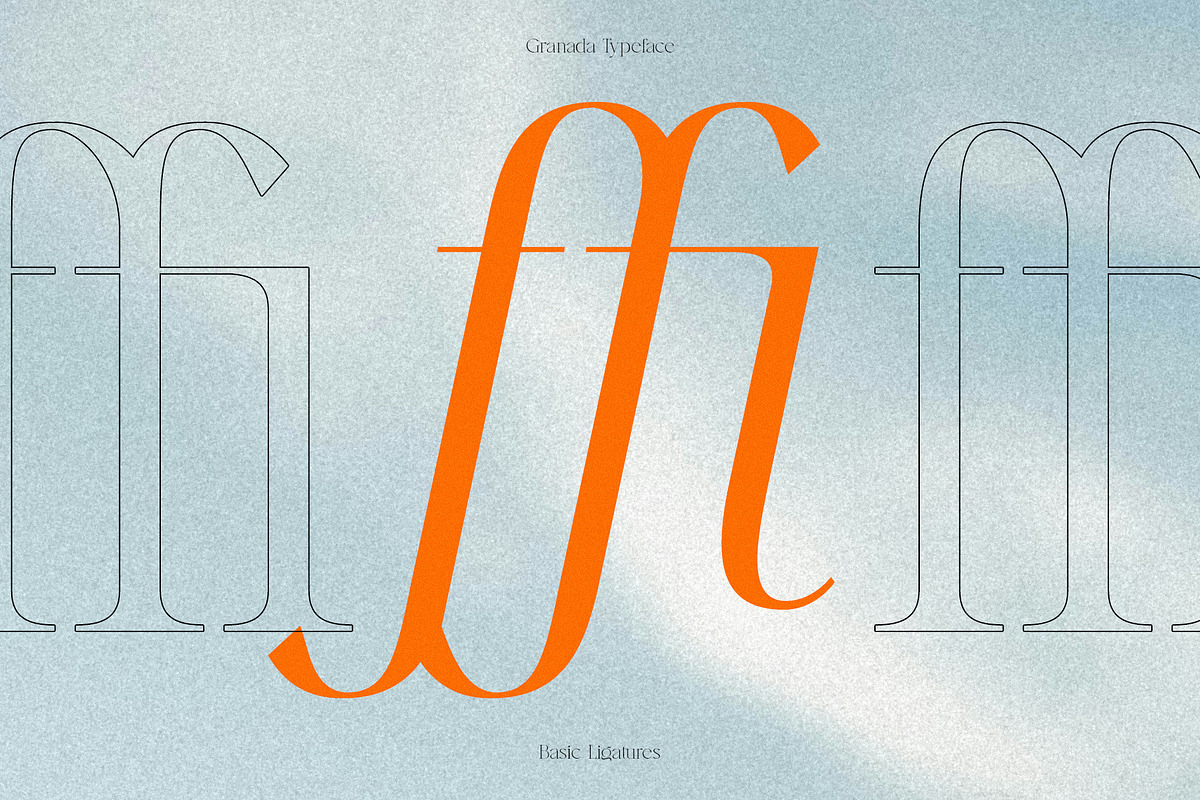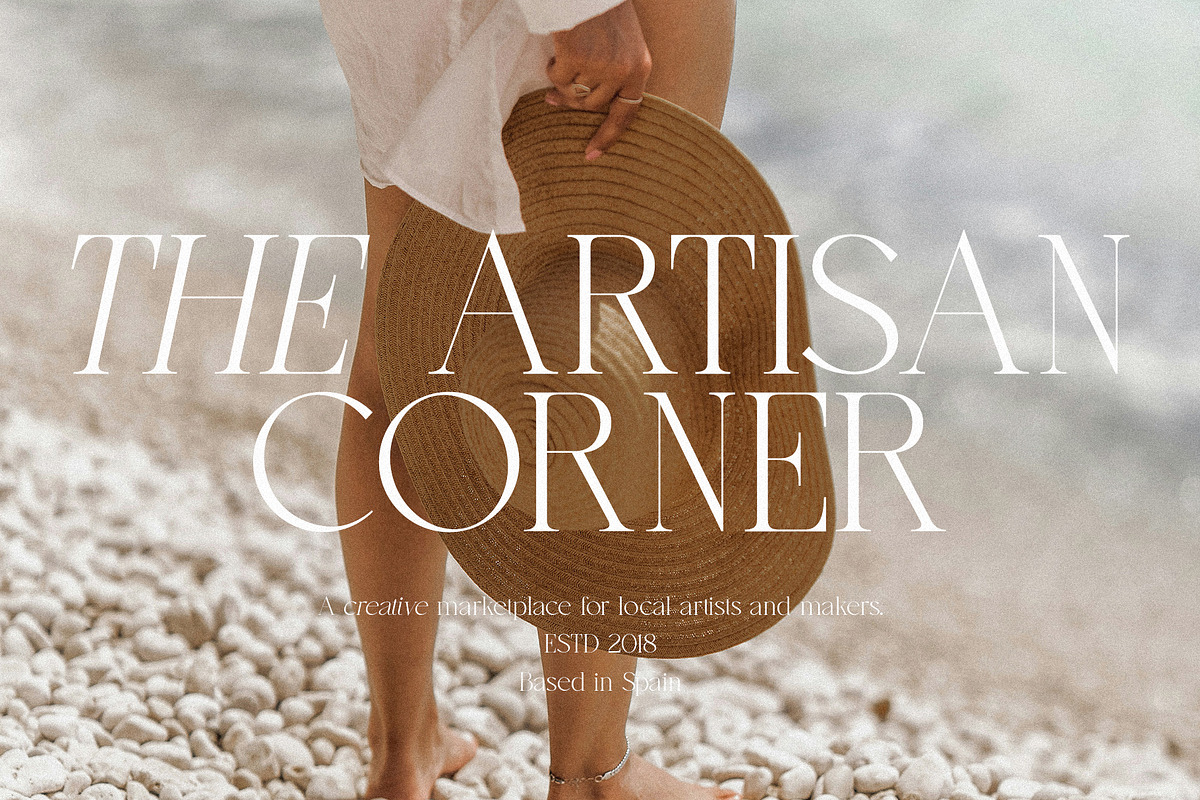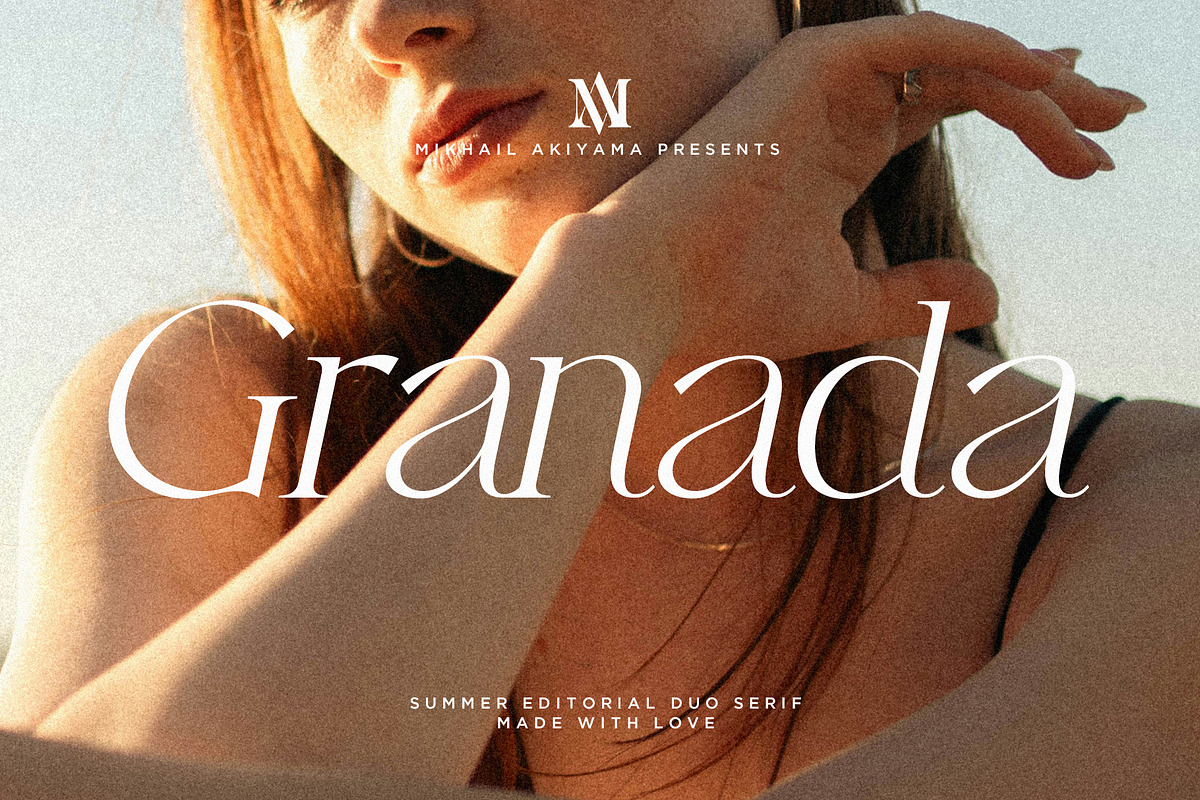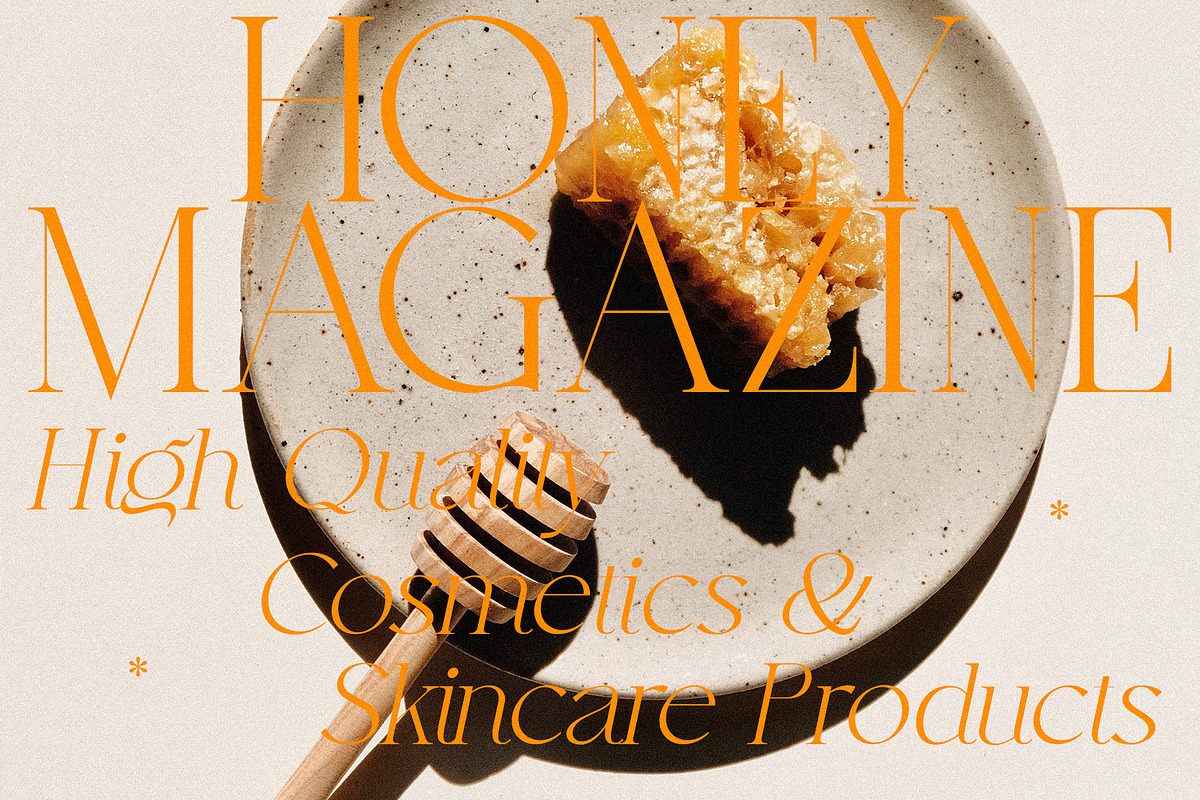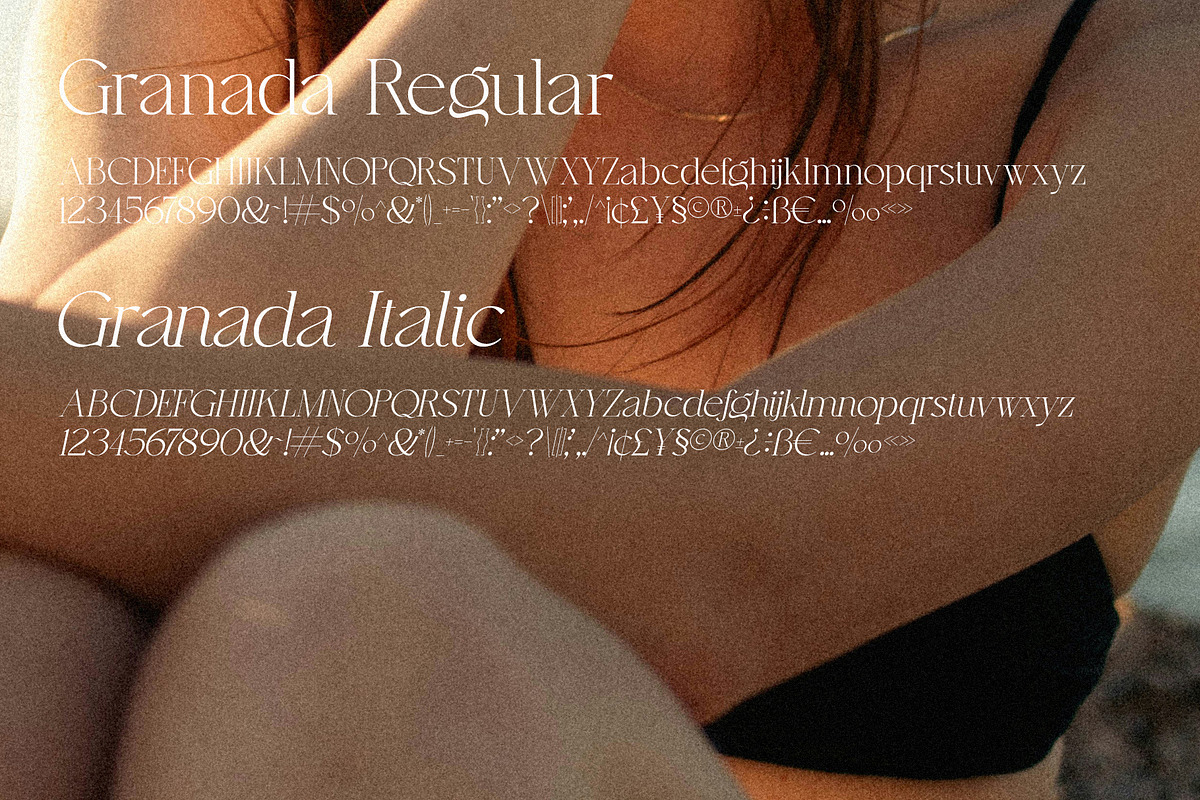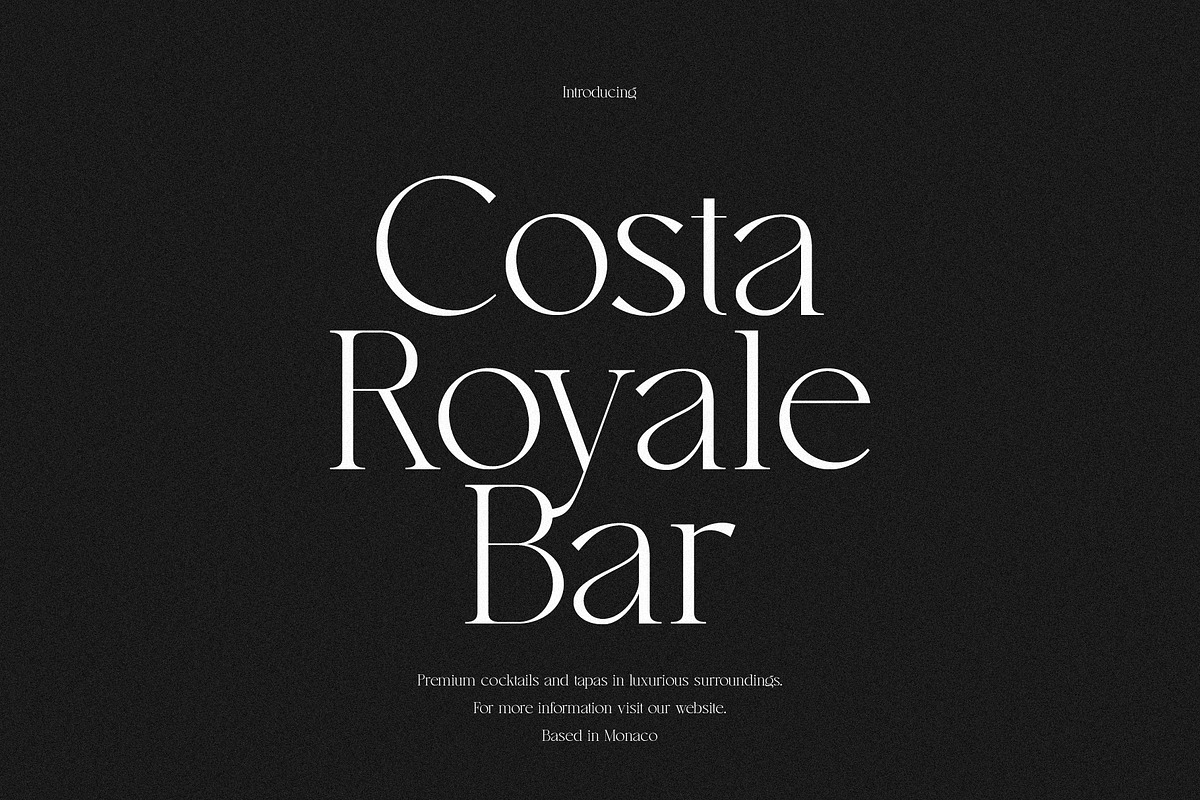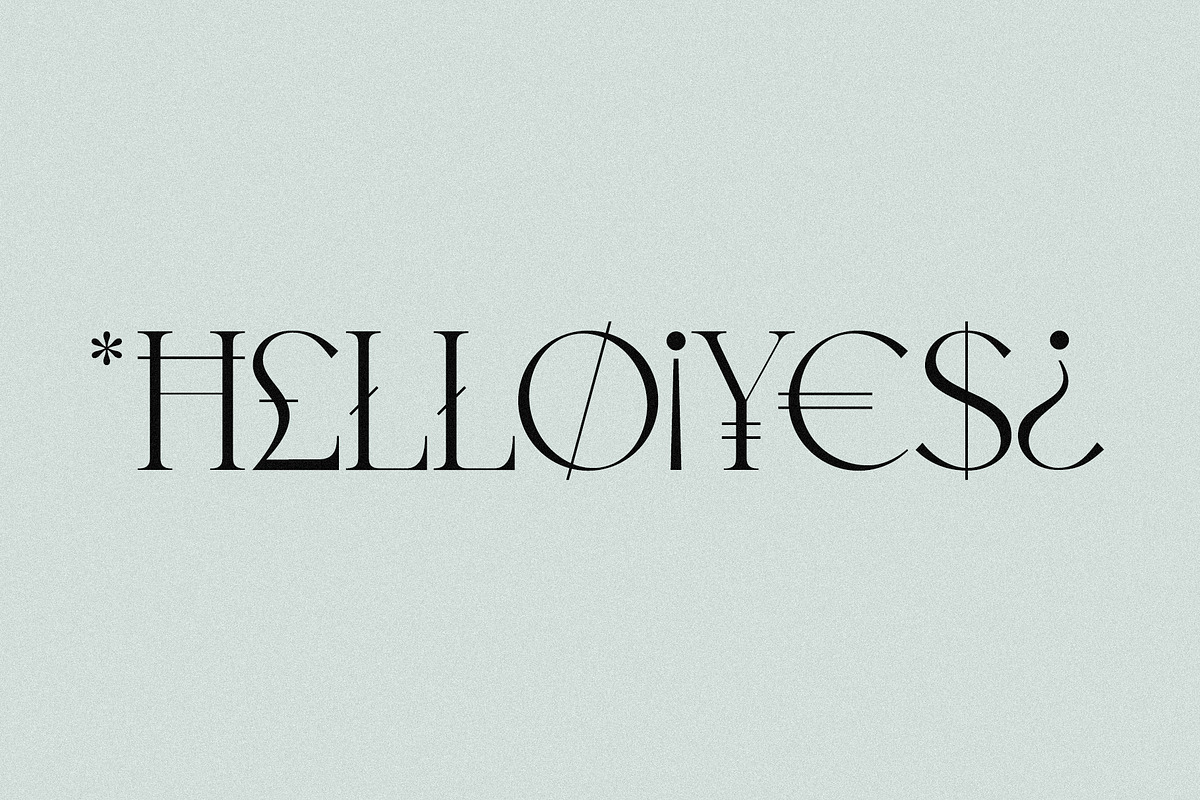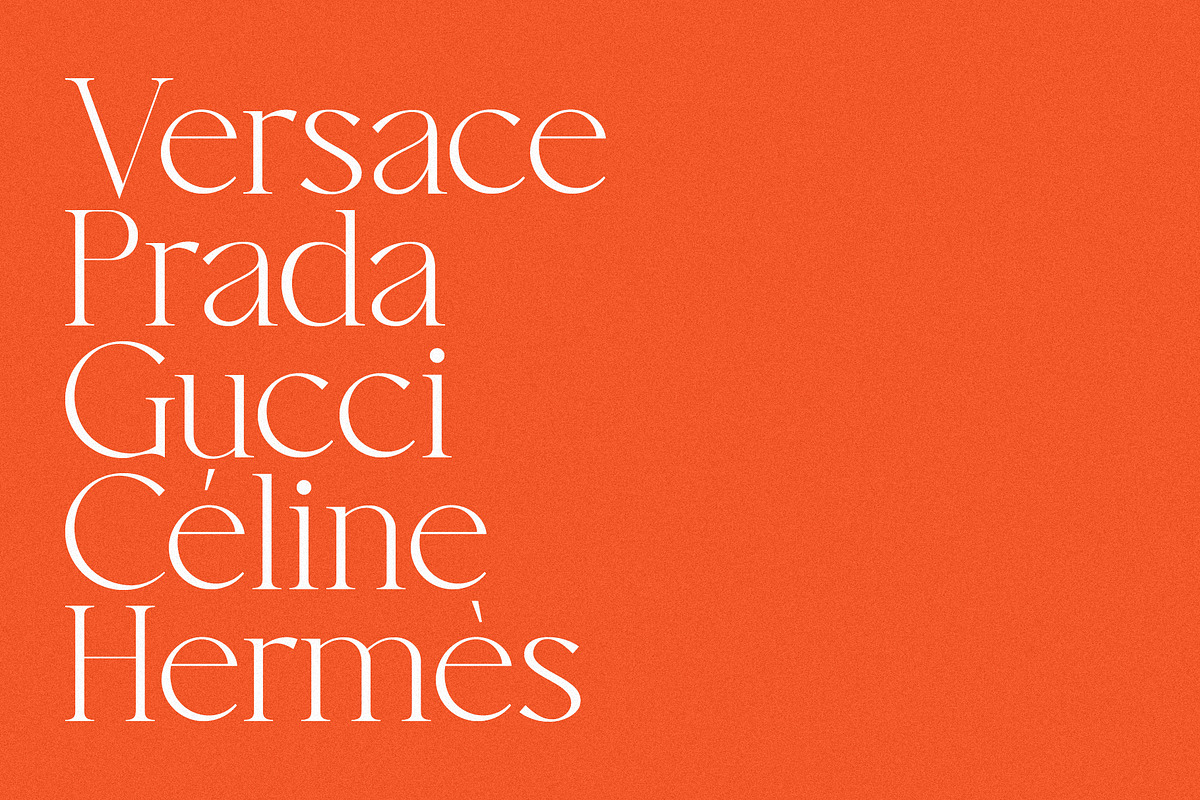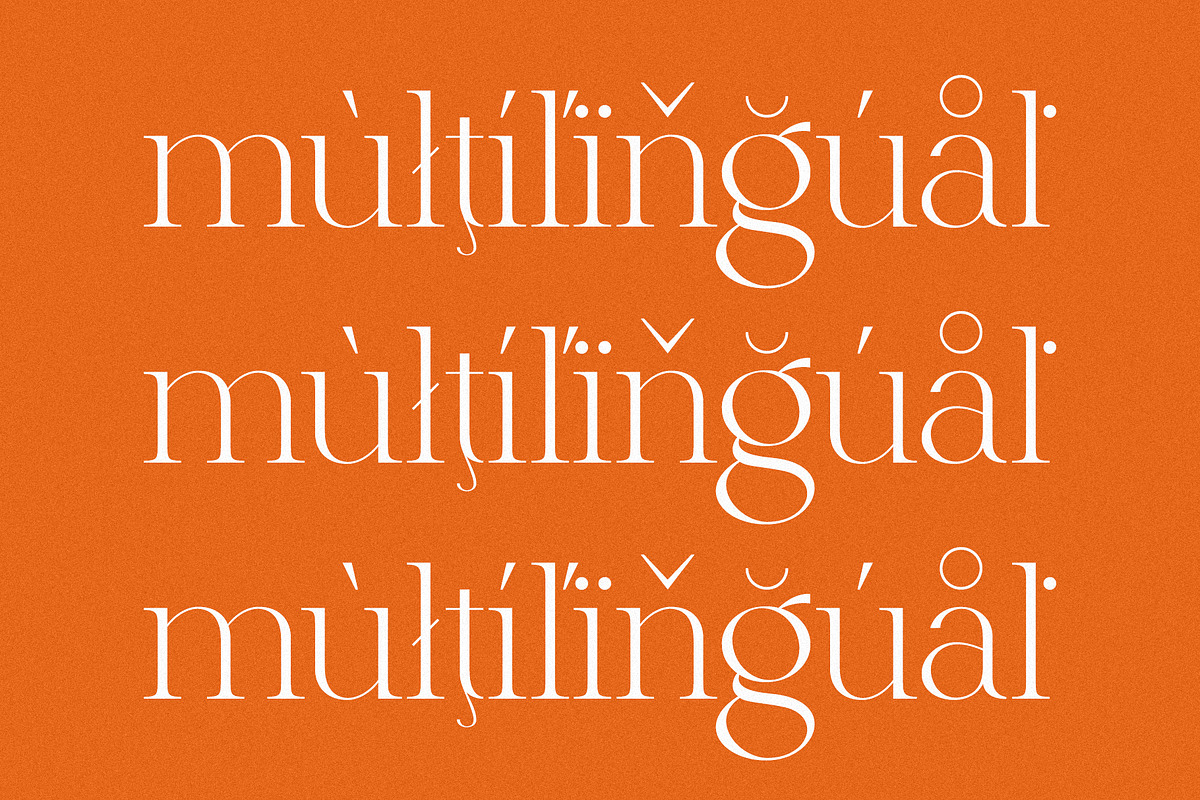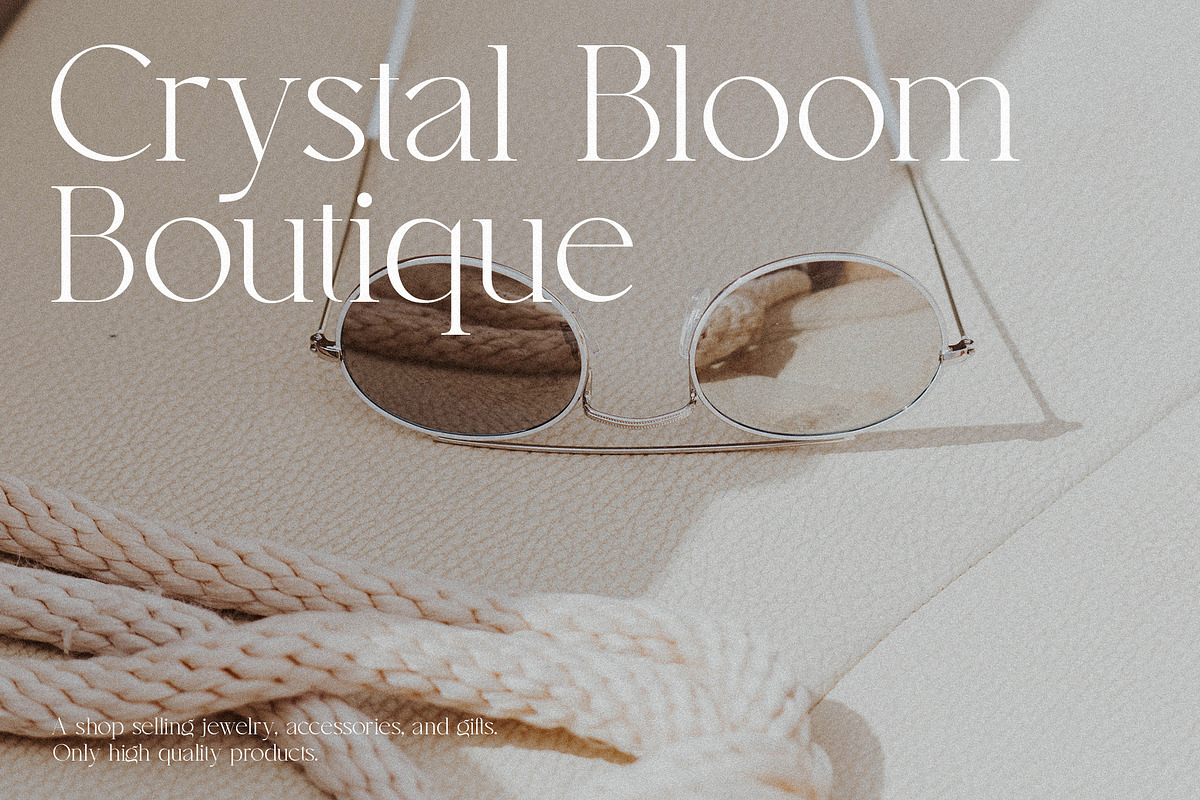
Granada - Summer Editorial Duo Serif
Granada – Editorial Summer Serif Duo is a font pairing that feels like the perfect blend of classic charm and modern flair. With its elegant serif that adds a touch of elegance, paired with a clean, friendly sans-serif, it’s the kind of font duo that makes any design feel polished and fresh. Whether you’re working on a magazine, a brand project, or just need something that feels timeless yet approachable, Granada brings a unique energy to the table. It’s got the kind of personality that stands out without shouting, making it ideal for anything from chic editorial spreads to stylish branding work. If you’re after something that feels both elegant and modern, this is your go-to.
Granada features uppercase & lowercase letters, numbers & symbols, ligatures, multilingual support & more than 300+ glyphs.